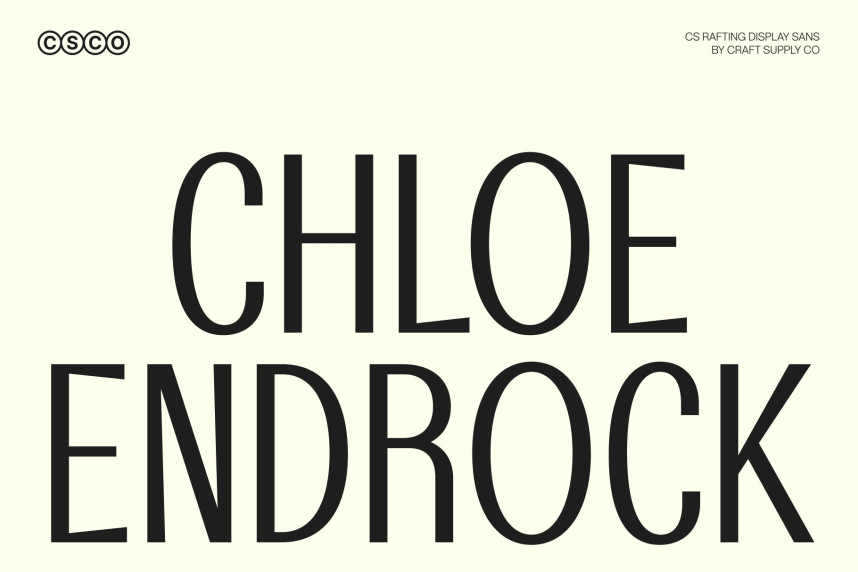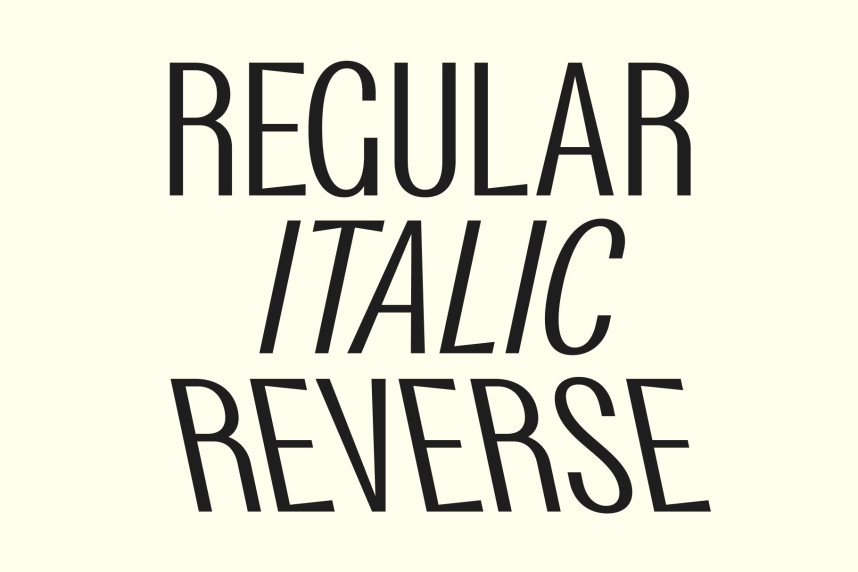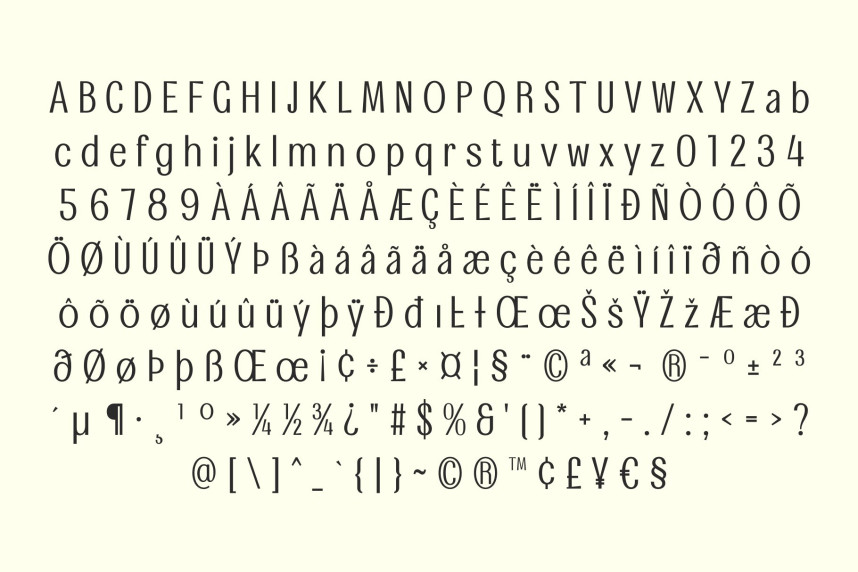
CS Rafting Font
CS Rafting Font – Modern Sans Serif with Elongated Strength Modern Sans Serif with Confident Presence.This is a modern sans serif font designed to communicate confidence through clean structure and strong proportions. Its clear construction and balanced weight give the typeface a solid, professional presence, making it highly effective for contemporary visual communication. The overall design feels assertive yet refined, allowing it to stand out without appearing aggressive.